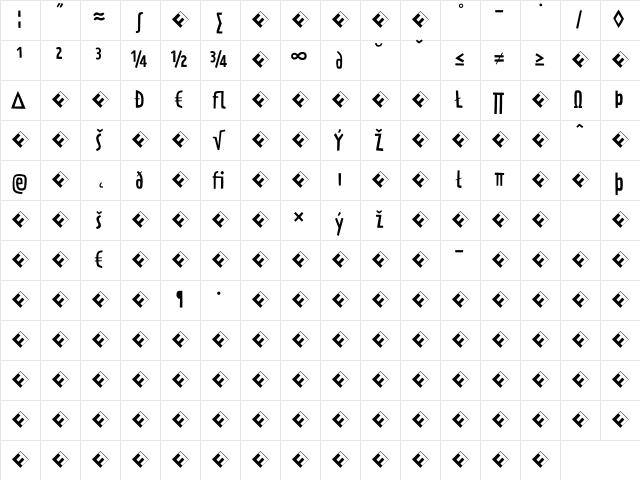
Complete PraterBlockTwo-FillExpert Regular glyph index. Displaying only characters natively supported by PraterBlockTwo-FillExpert Regular font.
PraterBlockTwo-FillExpert is a composed and adaptable typeface that performs quietly and consistently across a wide range of design contexts.
Who designed the PraterBlockTwo-FillExpert Regular font?